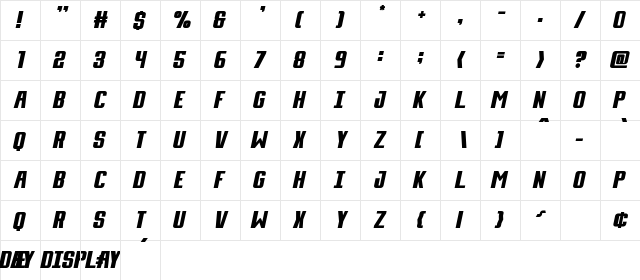
Day Display Italic
| Designer | Joseph Dawson |
Design Context for Day Display Typeface
Day Display is built around its visual character rather than neutral utility — its distinctive forms are designed to make an impression at display sizes. The dynamic lean of this cut emphasises speed and emphasis in any layout.
Font Pairing: Pair with a clean neutral sans-serif for body copy to let Day Display's character lead without overwhelming the composition.
Pro Tip: Treat Day Display as the centrepiece of your typographic hierarchy. One strong heading set in a decorative face can carry an entire layout.